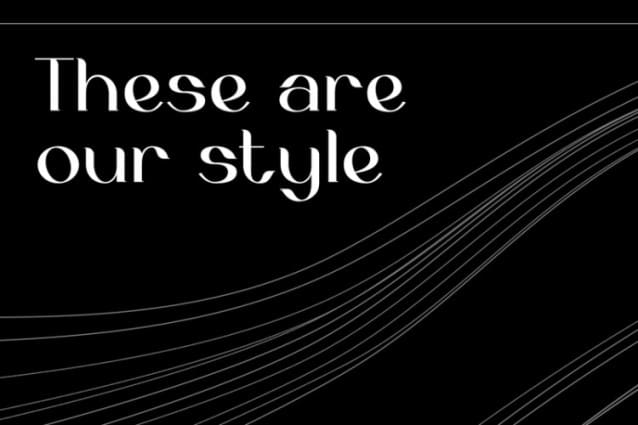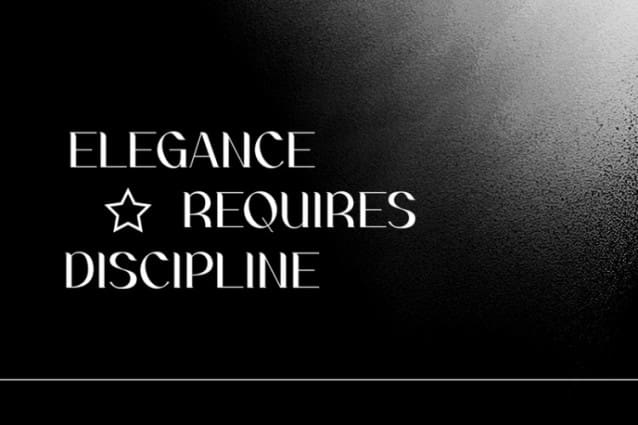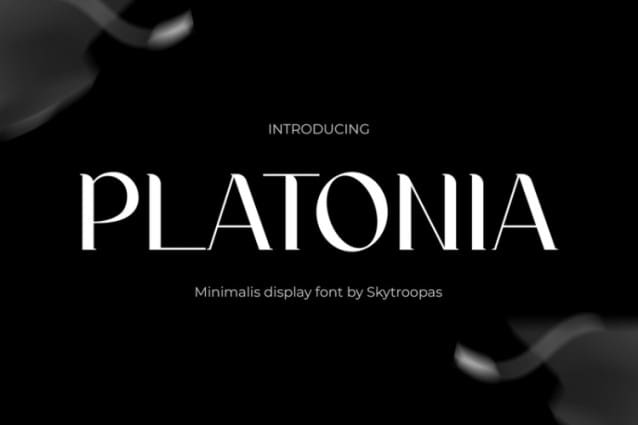
Platonia Display Font
Platonia Display Font, combines elegance and modernity, making it the perfect minimalist display typeface. Its clean, geometric shapes and bold, refined curves create a contemporary aesthetic that elevates your designs. The font’s unique letterforms feature sharp edges and smooth curves, which provide a striking visual appeal and timeless sophistication.
You can use PLATONIA to create designs that demand attention, such as logos, editorial headlines, posters, and branding materials. Its high legibility and striking appearance give you both functionality and artistic freedom. The sharp edges convey precision and professionalism, while the subtle curves add a sense of softness and approachability.
Designed for today’s creative needs, PLATONIA excels on platforms like Instagram and other social media channels where aesthetics and visual impact are crucial. Whether you design a high-fashion lookbook, develop a luxurious brand identity, or craft bold social media graphics, this versatile typeface enhances and elevates your creative vision. Its modern style pairs well with other sans-serif or serif fonts, enabling you to create balanced and captivating typography compositions.